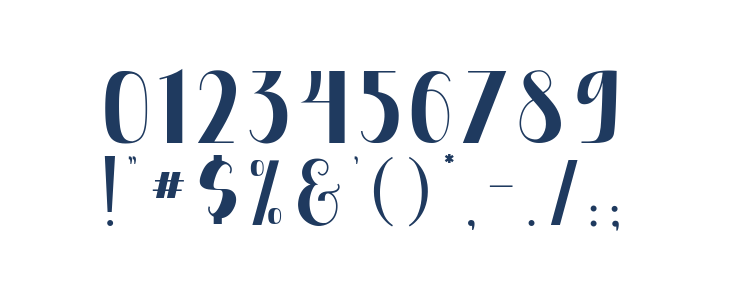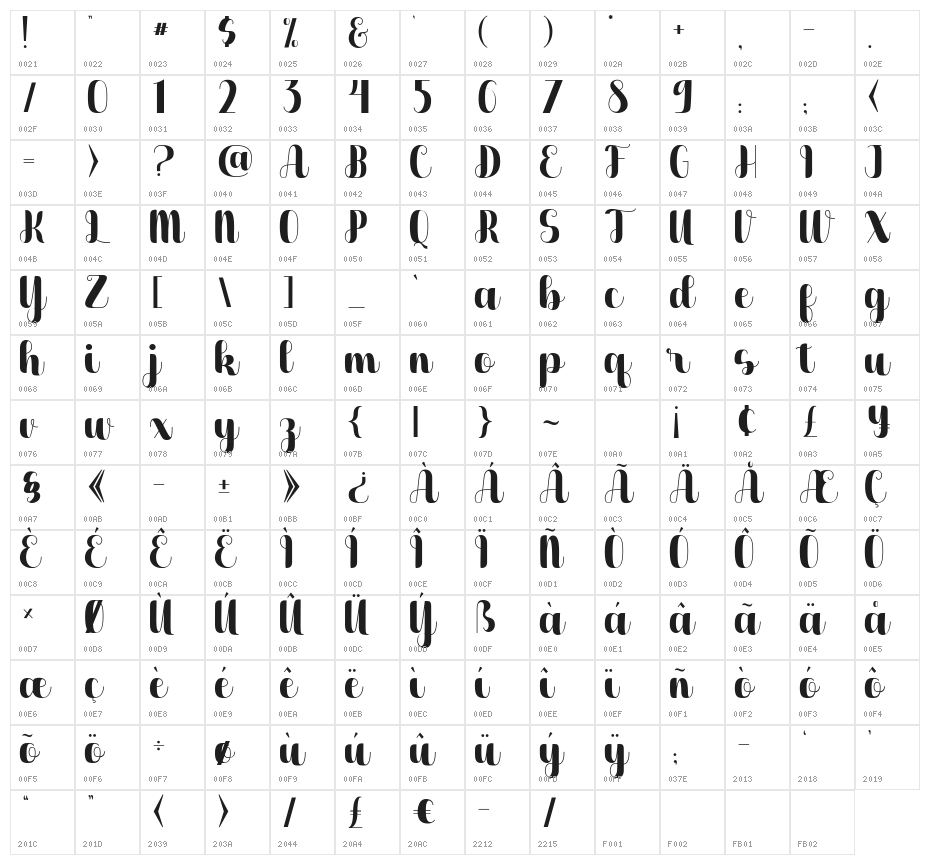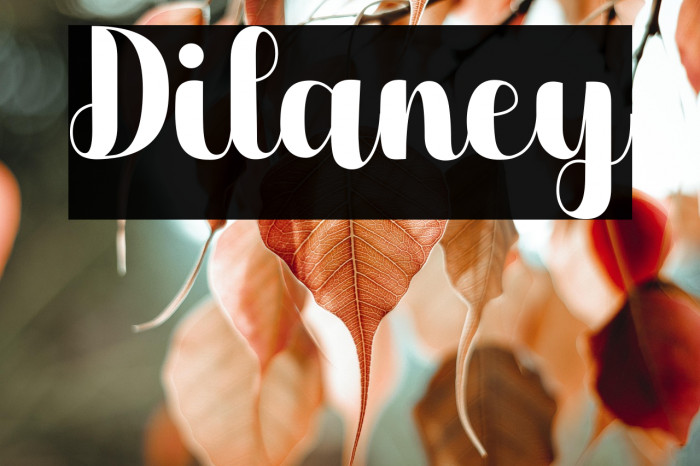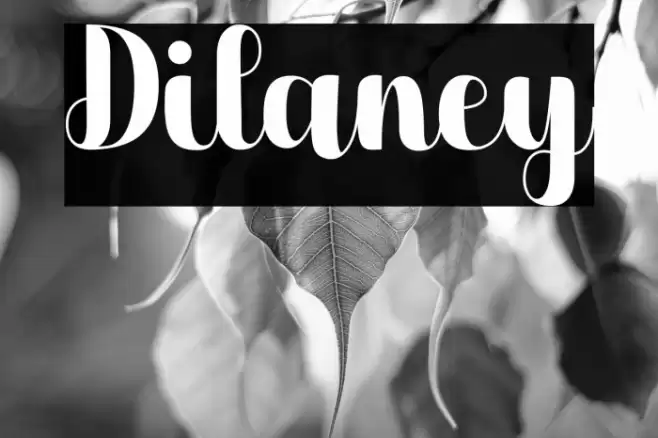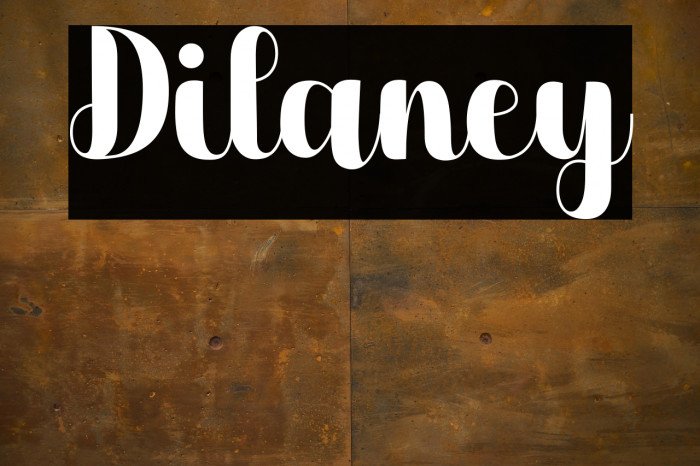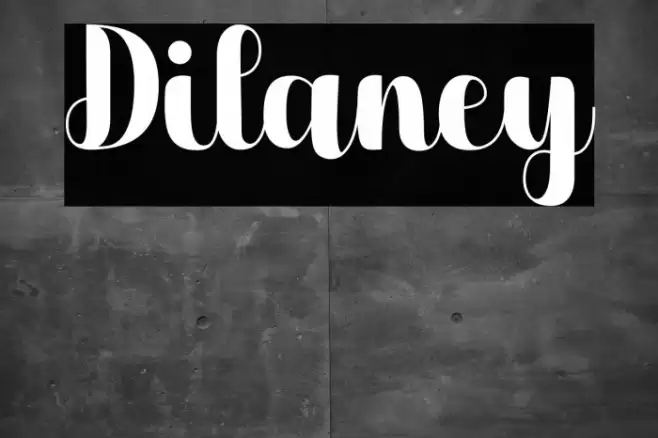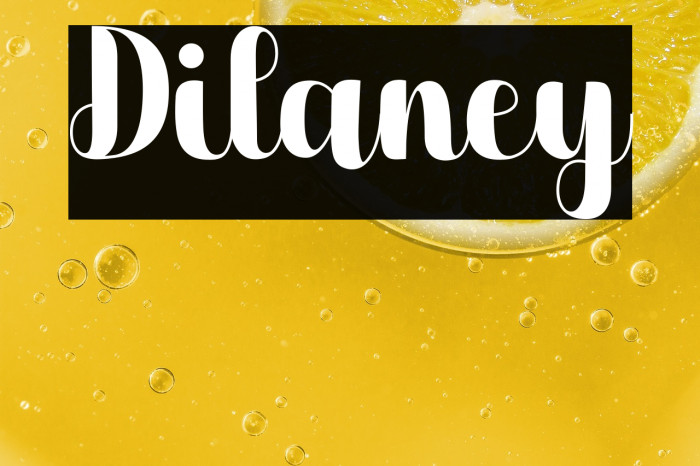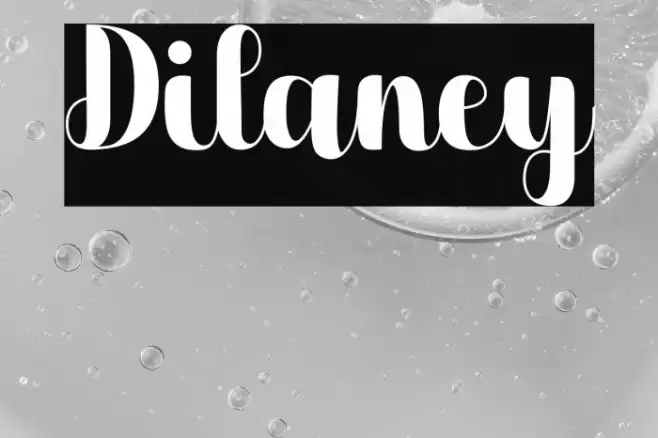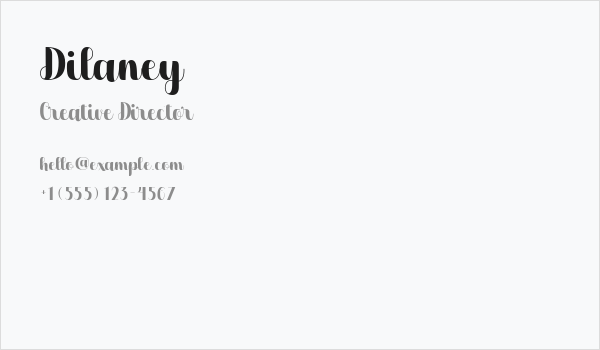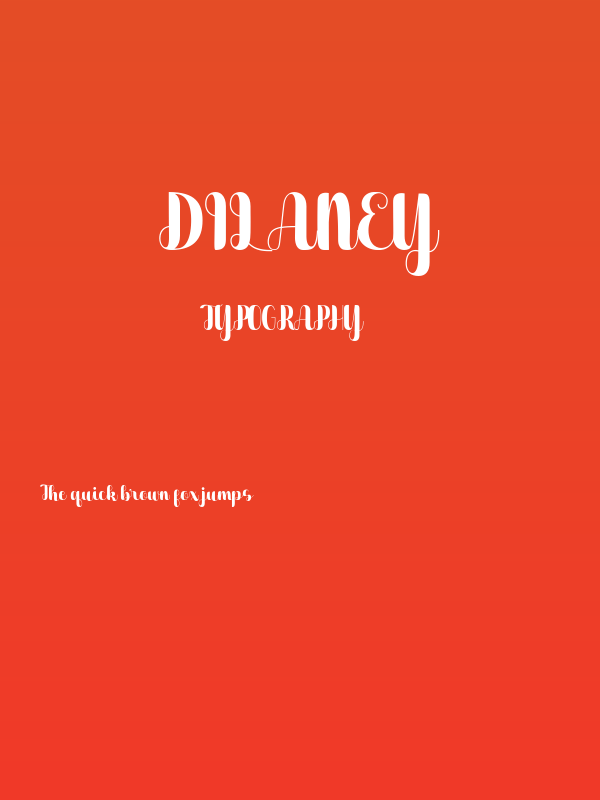
Dilaney Font
Dilaney Description
This font features a playful and elegant script style, characterized by its flowing curves and loops. The uppercase letters are bold and dramatic, with a distinct flair that adds a touch of sophistication. The lowercase letters maintain a consistent rhythm, with smooth connections between strokes, creating a harmonious and fluid appearance. The numerals are stylish and complement the overall aesthetic, while the special characters retain the same whimsical quality. This font's unique design makes it stand out, offering a blend of modernity and classic charm.